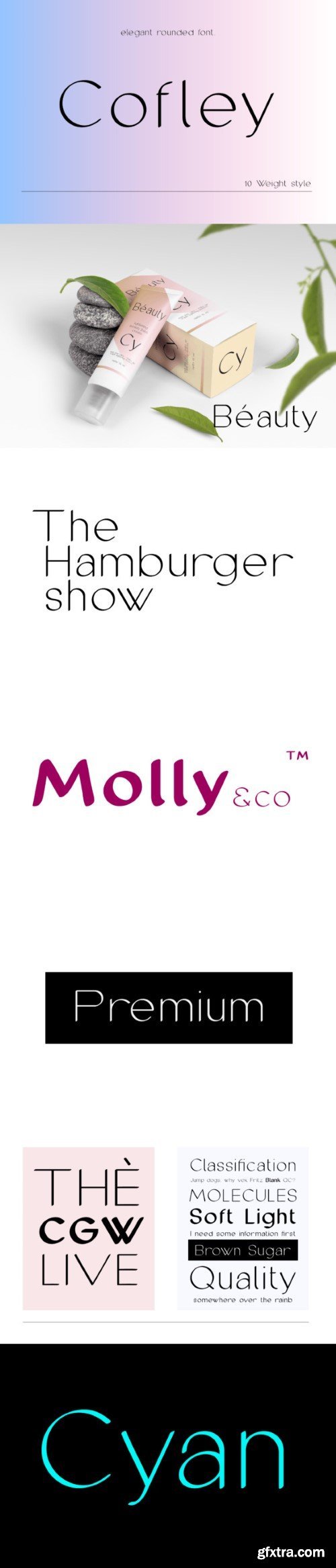
Cofley Font
Cofley is a modern, elegant rounded sans serif typeface. Consisting of 10 weights from Thin to Black with each 331 glyphs. Cofley contains Central Europe multi-lingual glyphs. It is suitable for display and reading purposes and has a modern and elegant touch